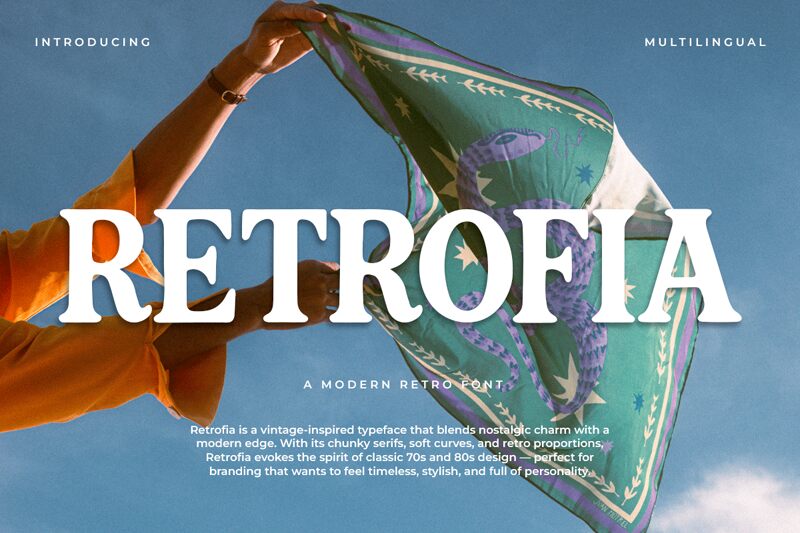
Retrofia font is a free retro font designed by Kong Font. This typeface combines classic appeal with a modern twist, characterized by soft curves, chunky serifs, and a harmonious flow. With its expressive and dramatic presence, it offers a bold personality that captures the essence of vintage styles while maintaining a stylish and timeless feel.
Perfect for branding, logos, packaging, posters, apparel, and labels, Retrofia can elevate any design that benefits from a nostalgic touch. Incorporate it into editorial designs, invitations, social media content, signage, or any creative projects where a vintage charm with an elegant twist is desired.